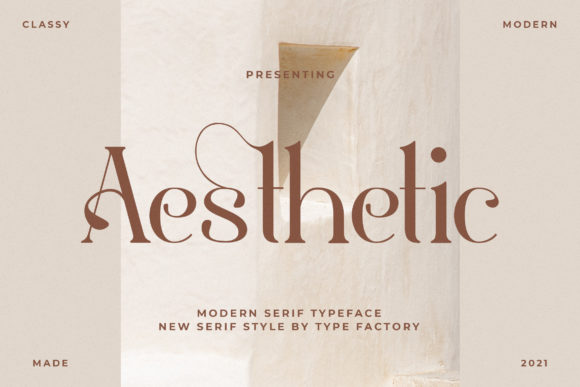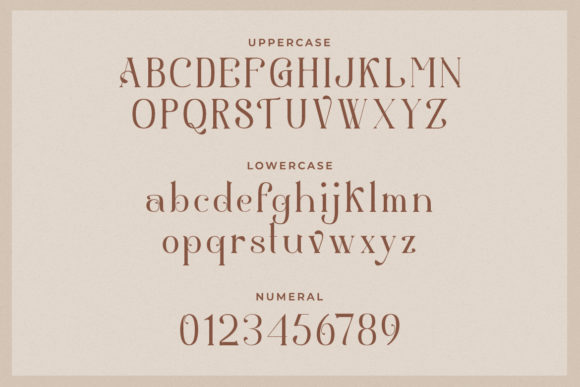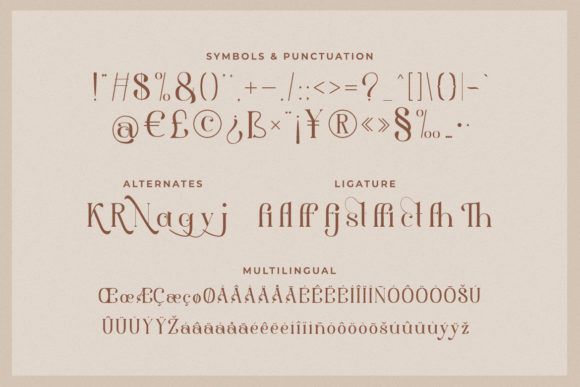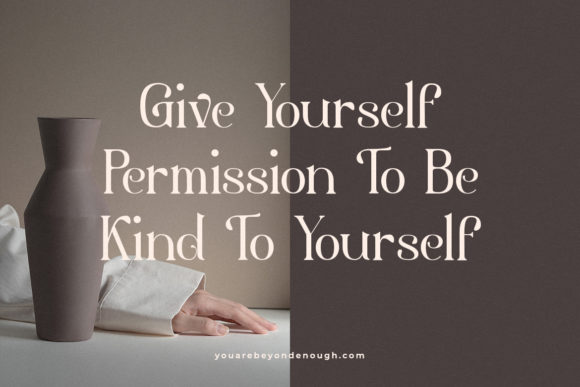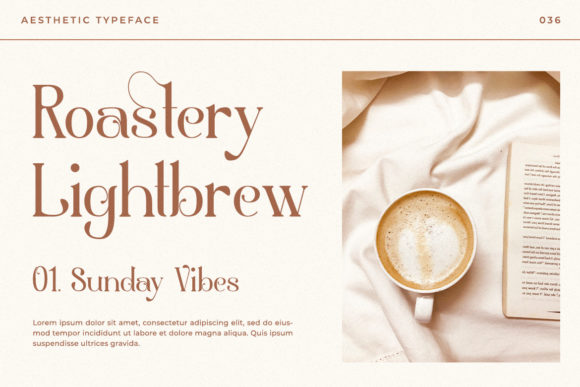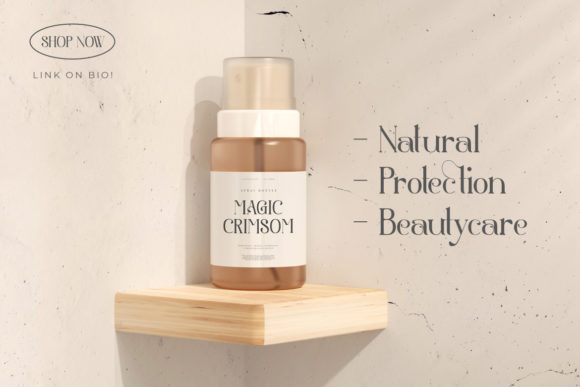
Aesthetic Font
Aesthetic is a modern serif font, that features a simple and minimalist feel. Fall in love with its incredibly versatile style and use it to create spectacular designs!